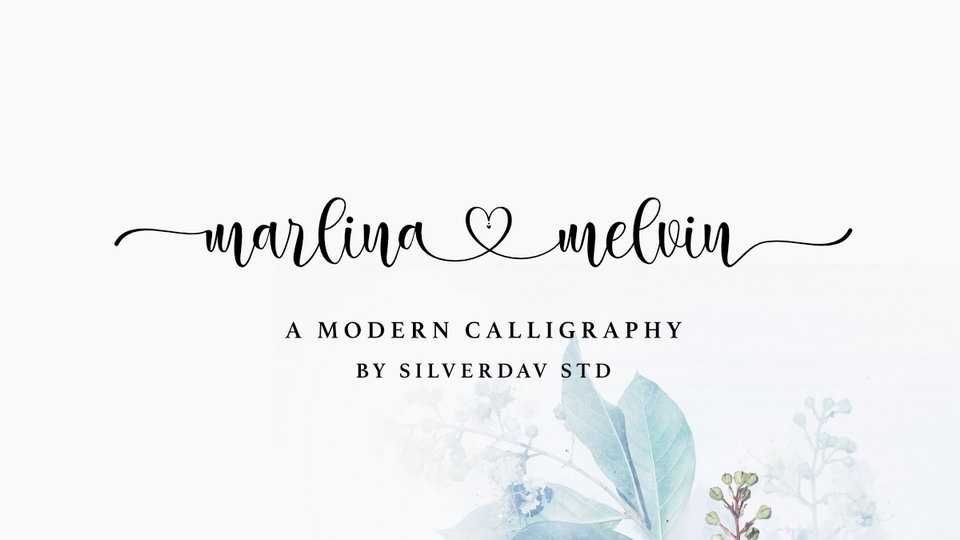
Download Marlina Melvin font, a modern calligraphy typeface with a natural handwritten, sophisticated flow full of hearts and swashes. Marlina Melvin is perfect for branding, wedding invites, and cards.
Designer: Silverdav Studio